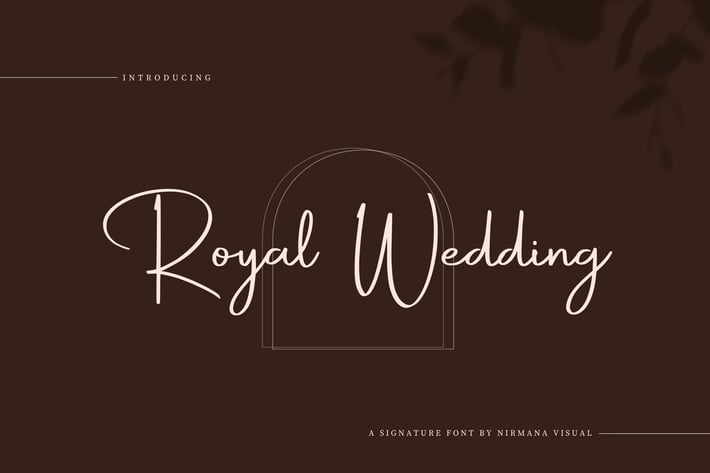
Royal Wedding - Logo Font
Royal Wedding is a Natural handwriting modern script calligraphy font.
full set of lowercase and uppercase letters, numerals and punctuation, multilingual symbols.